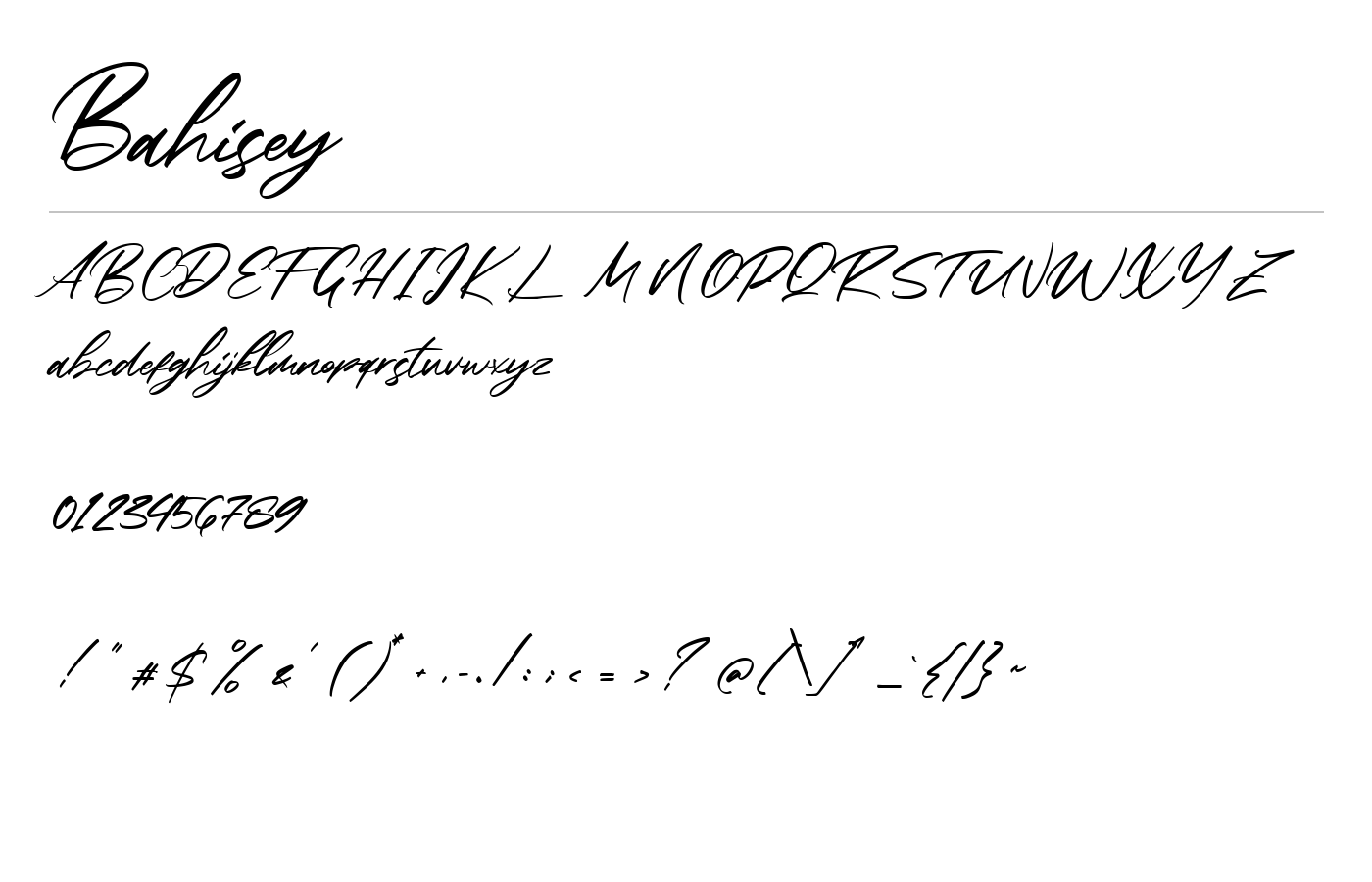
Bahisey is a lively, elegant script font that features a handwritten style with smooth, flowing strokes and slight slanting, giving it a personal and expressive feel. Its slender, dynamic letterforms and consistent weight make it ideal for adding a touch of sophistication and charm to invitations, branding, and creative projects that seek a modern yet graceful touch. This font works particularly well for fashion, lifestyle, and artistic uses where a stylish, approachable personality is desired.
Bahisey Font
About Bahisey Font